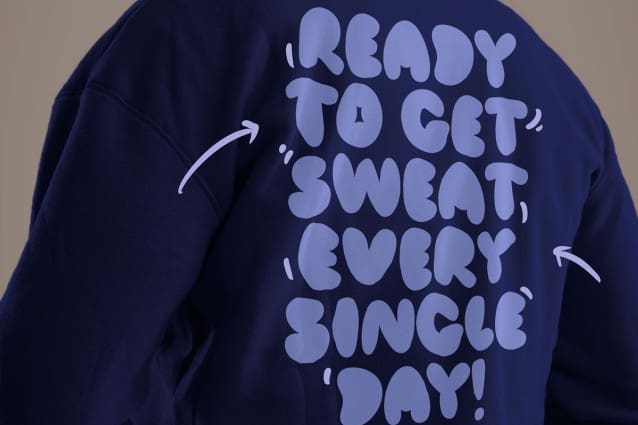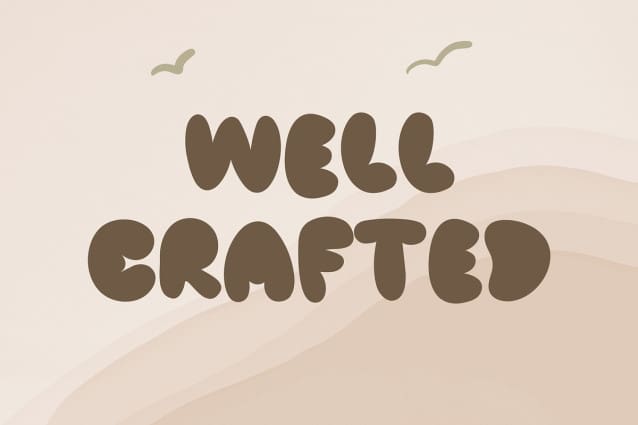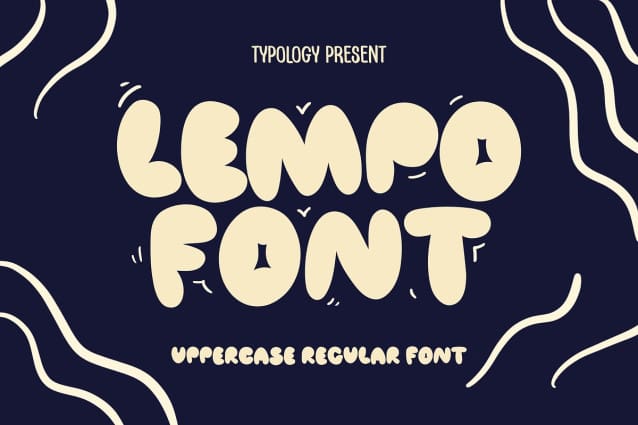
Lempo Display Font
Lempo Display font! It features a hefty style with a unique blend of bubbly and delightful curves. The font comes with uppercase letters from A to Z, as well as alternative versions of punctuation marks such as !, ?, and &. This font is perfect for creating striking logos, beautiful quotes, eye-catching artwork, captivating signs, powerful titles, and adding a personal touch to your designs. So go ahead and give it a try – you’re sure to love it!